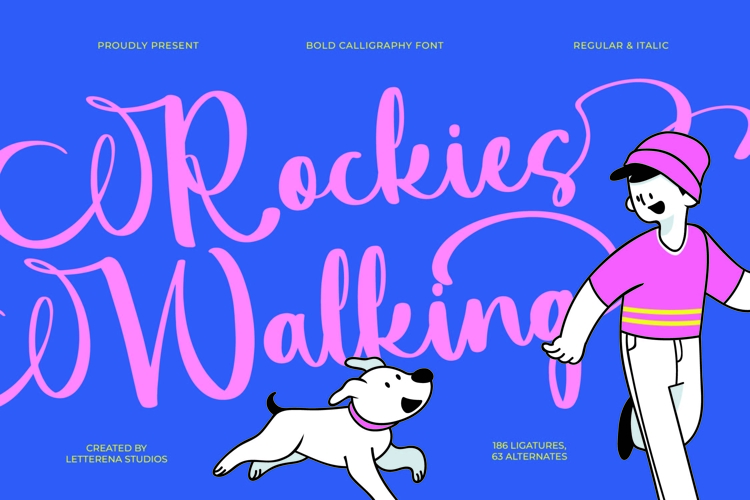
Rockies Walking Bold Calligraphy Font
Rockies Walking - Bold Calligraphy Font, Rockies Walking is a bold calligraphy font with fun curves and expressive strokes, designed to bring playfulness and confidence to your creative projects. With 186 ligatures and 63 alternates, this handcrafted script is perfect for logos, posters, invitations, packaging, and branding that need a lively and elegant handwritten touch.